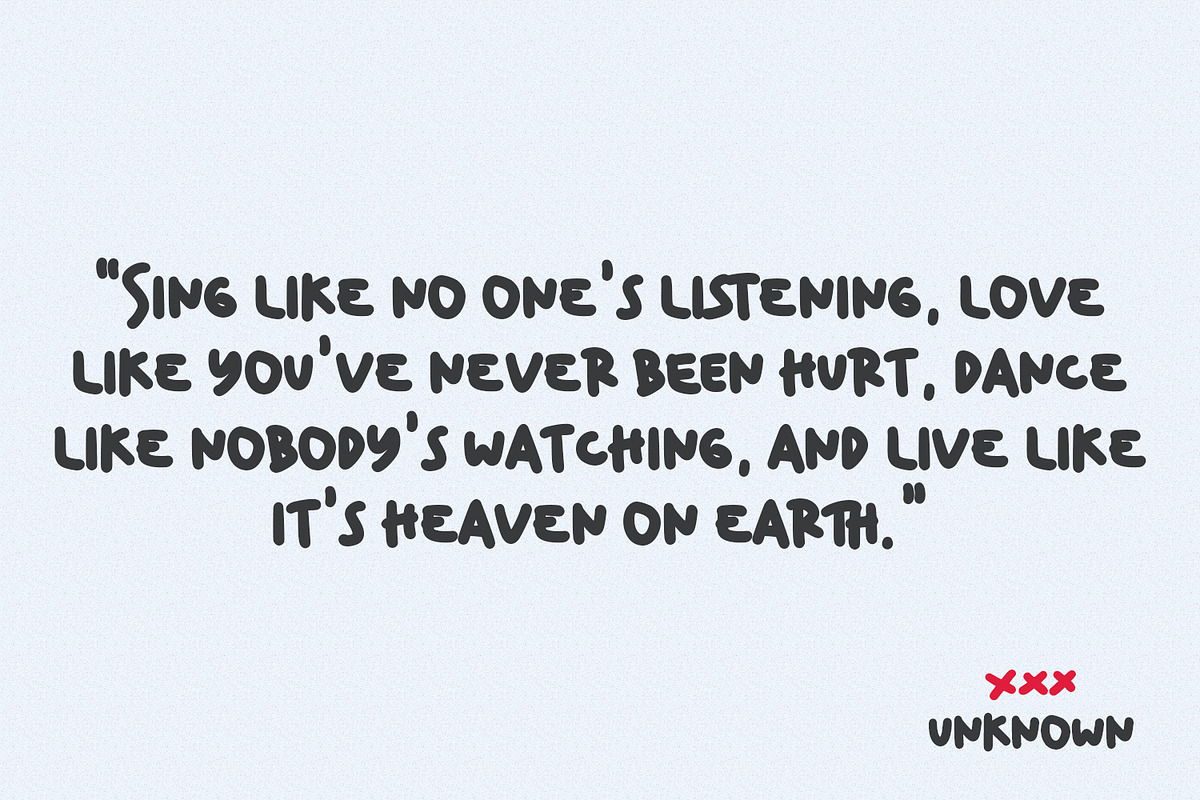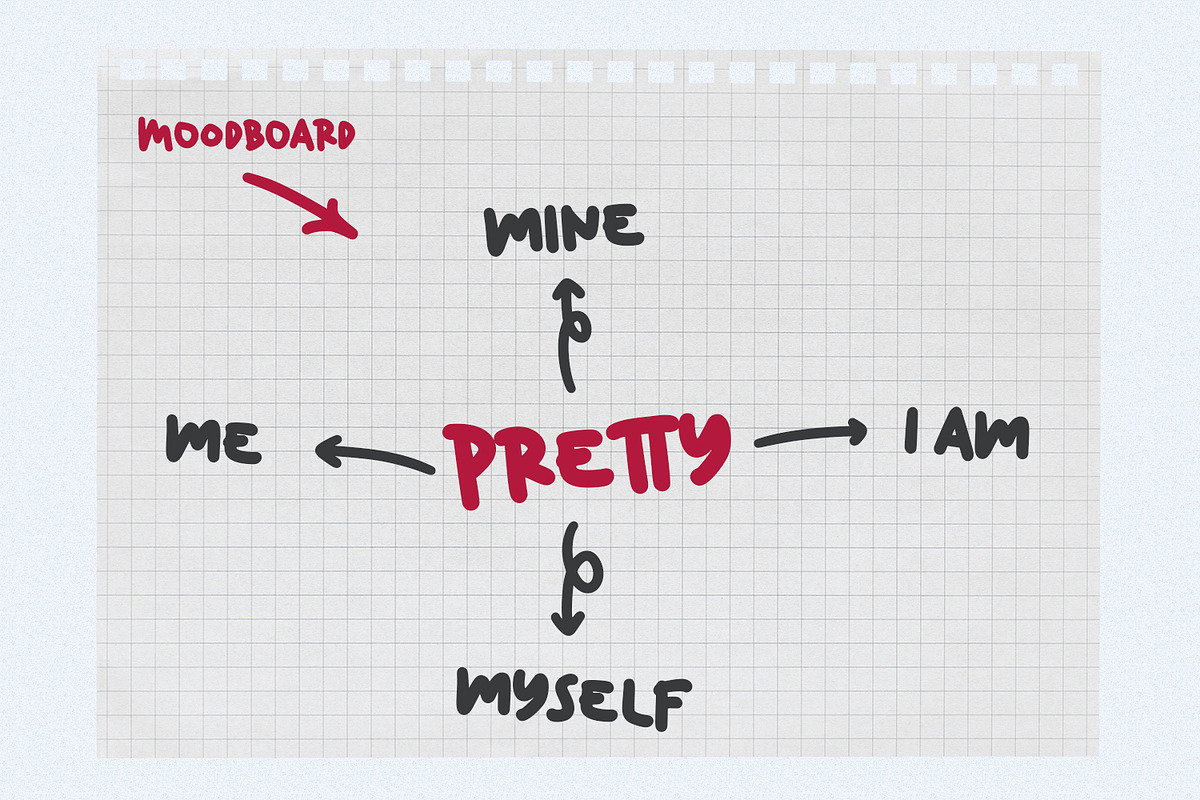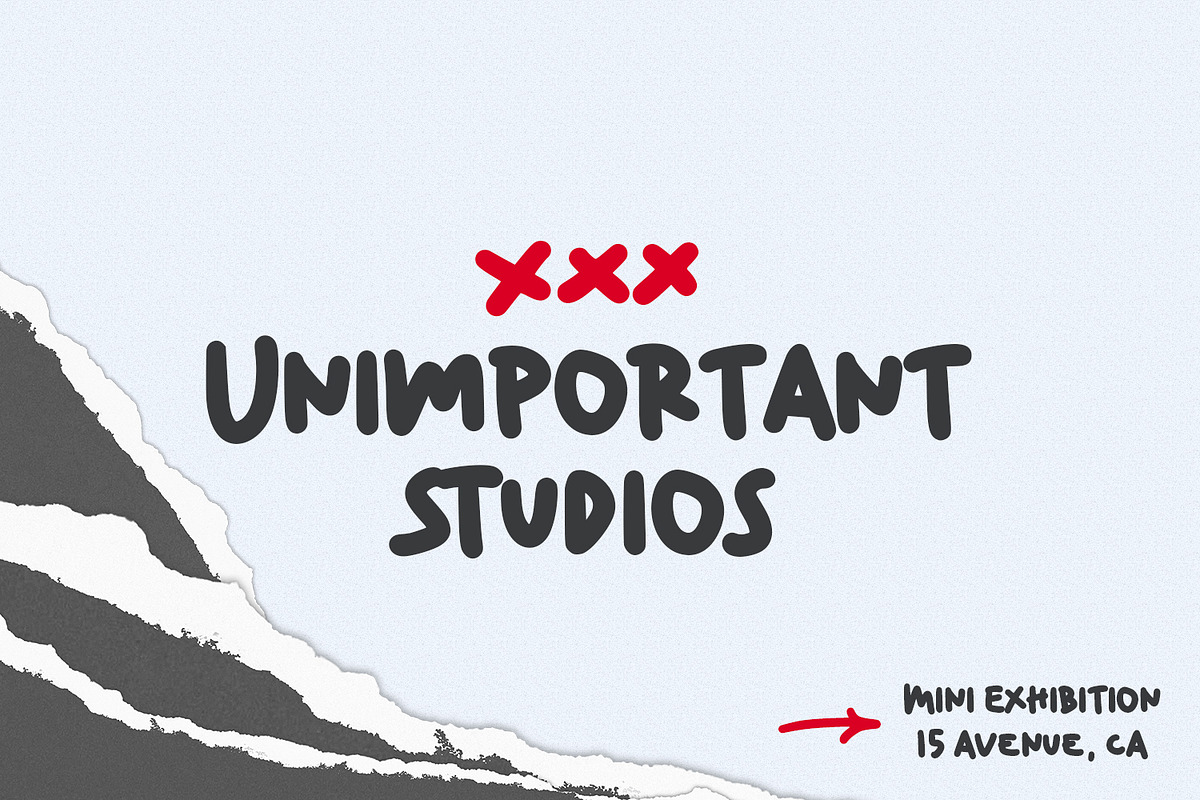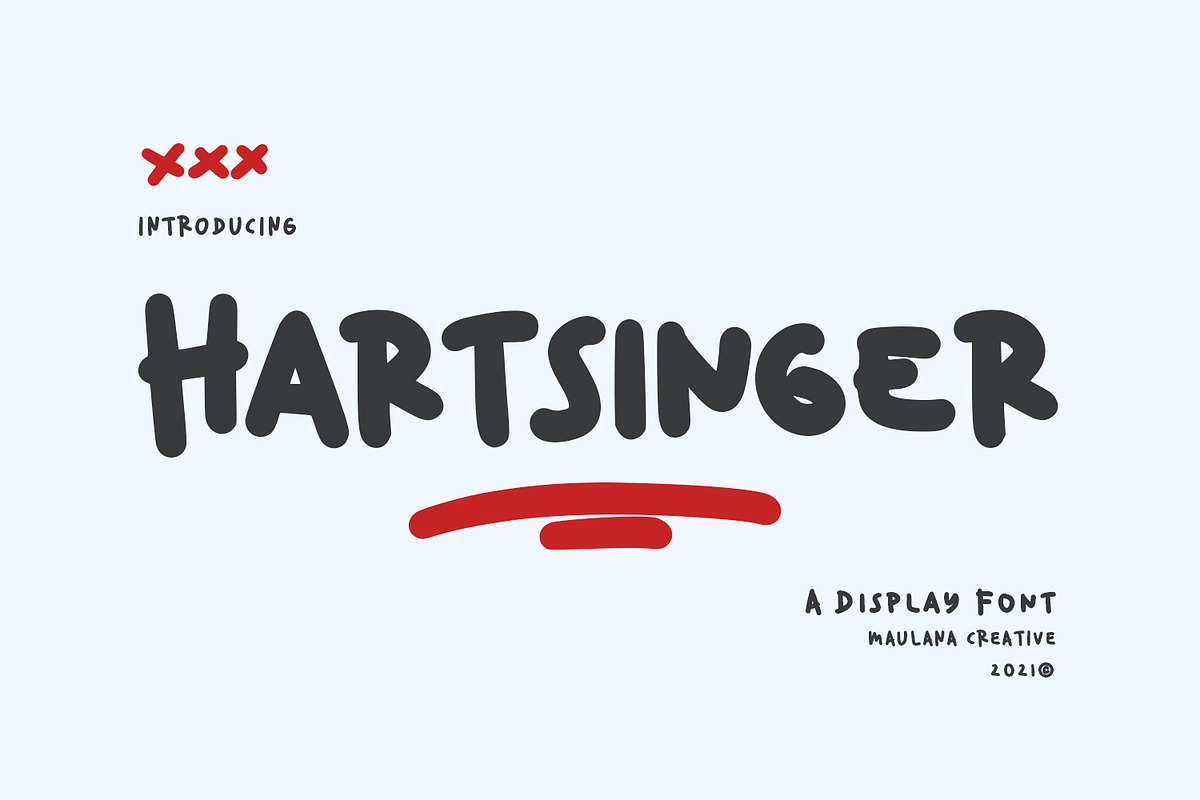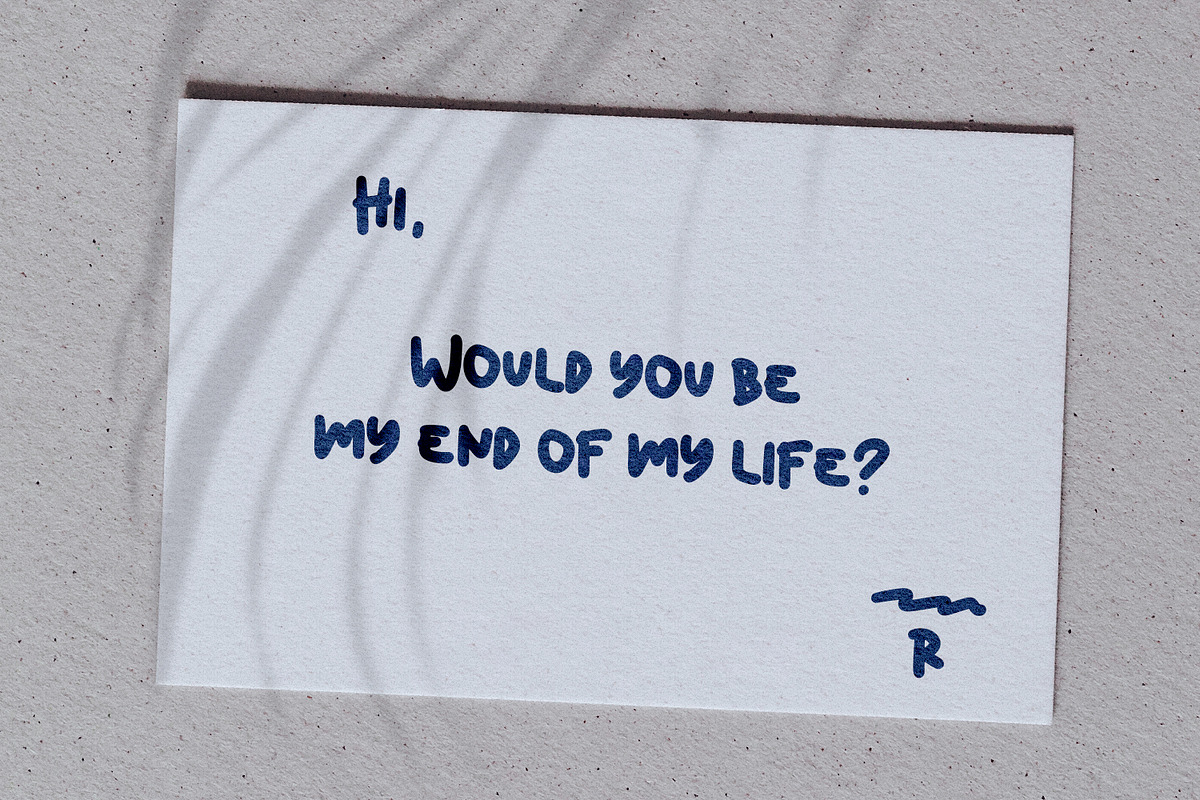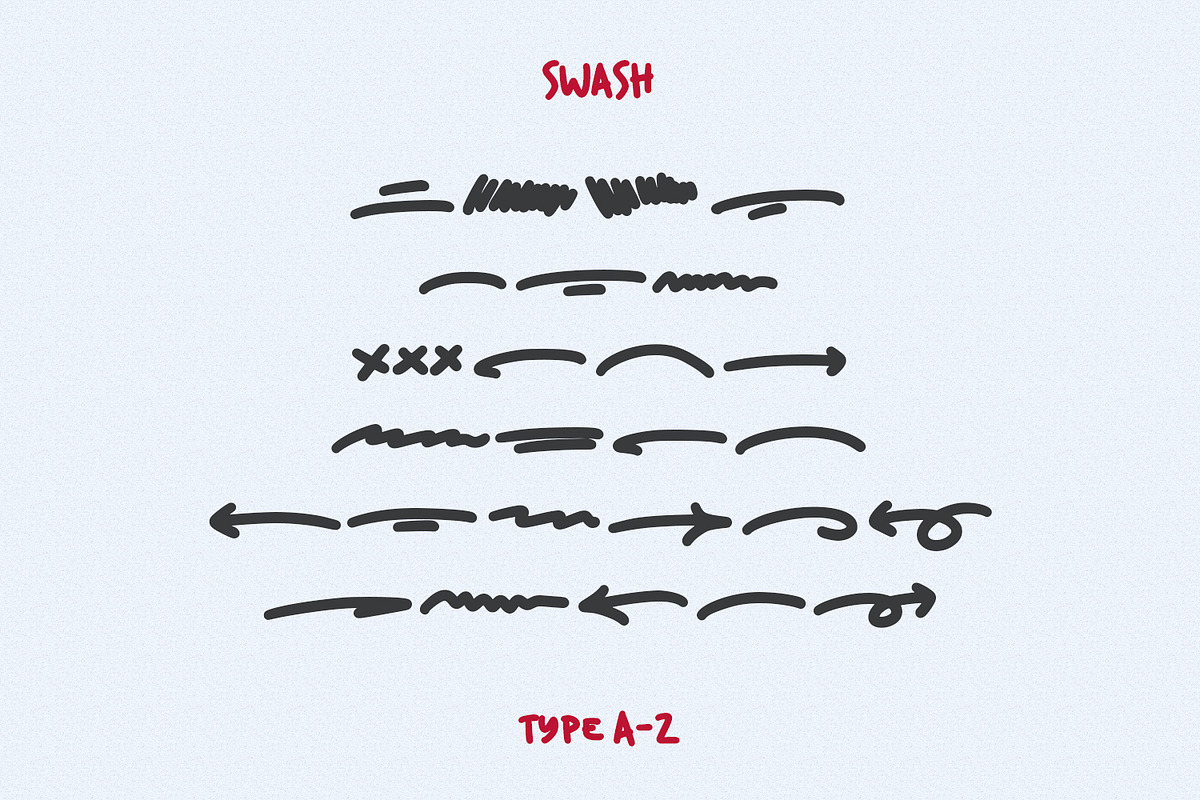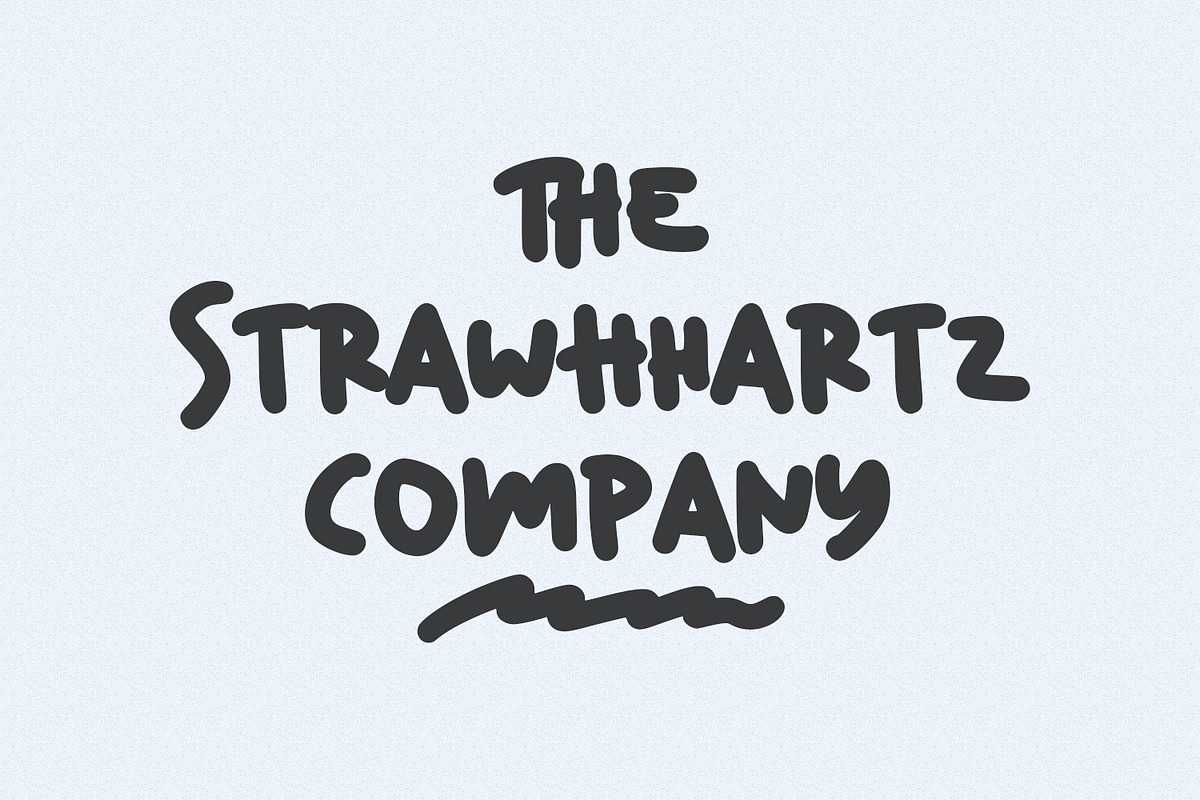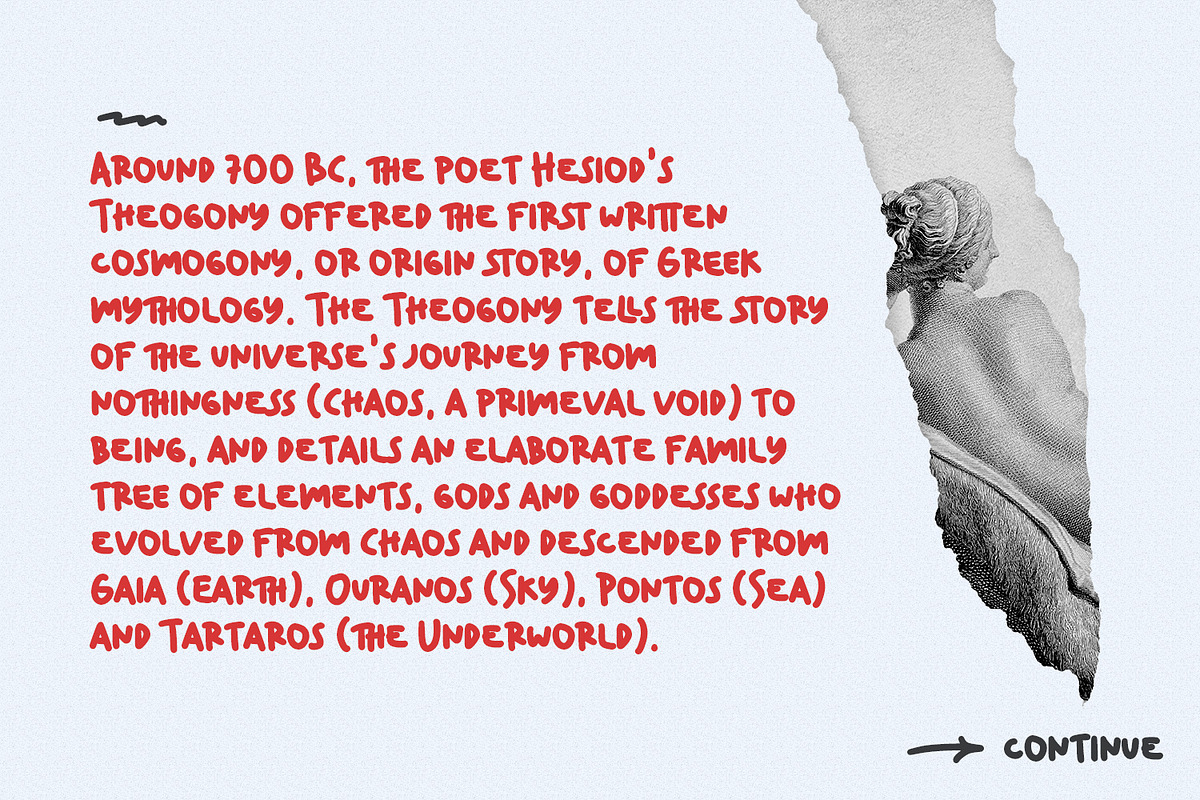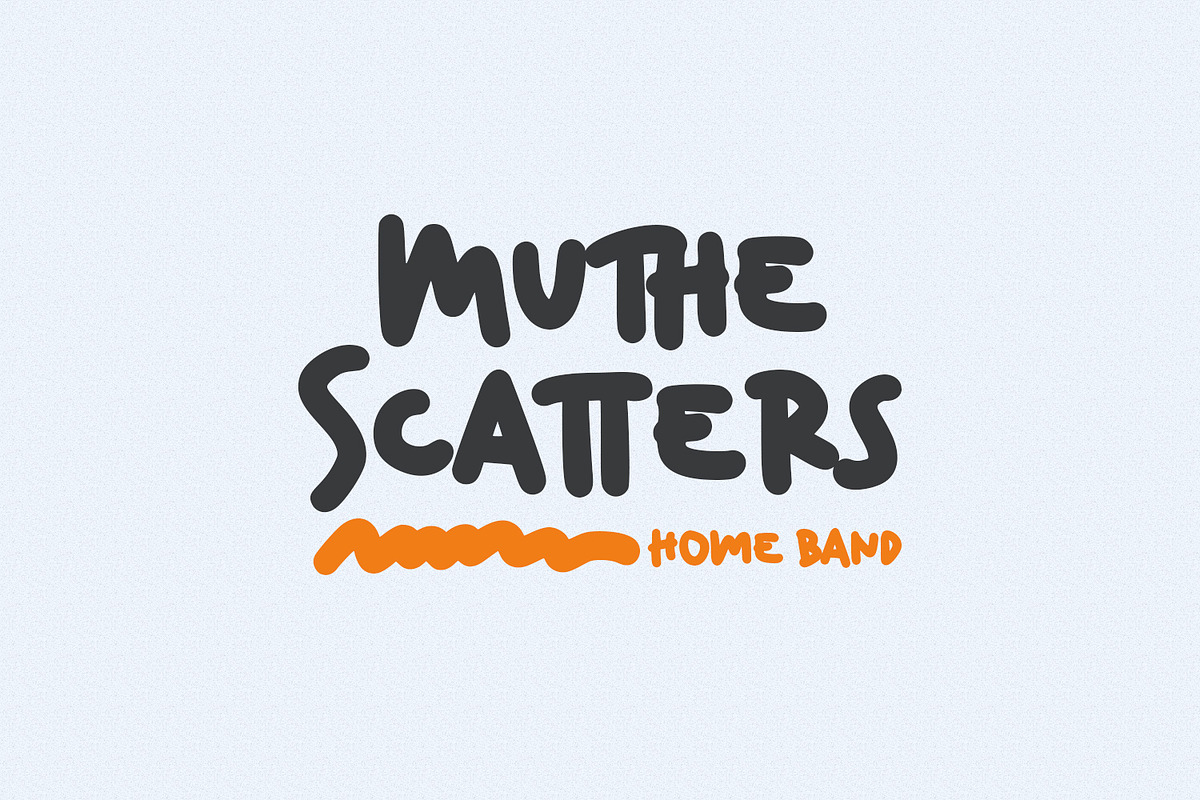
Hartsinger Unique Display Font
Hartsinger is a fancy handwritten font. With cartoon vibes or notes on the book scratch, had a fun character with a bit of ligatures and fun swashes. To give you an extra creative work. Hartsinger font support multilingual more than 100+ language. This font is good for logo design, Social media, Movie Titles, Books Titles, a short text even a long text letter and good for your secondary text font with sans or serif. Make a stunning work with Hartsinger font.